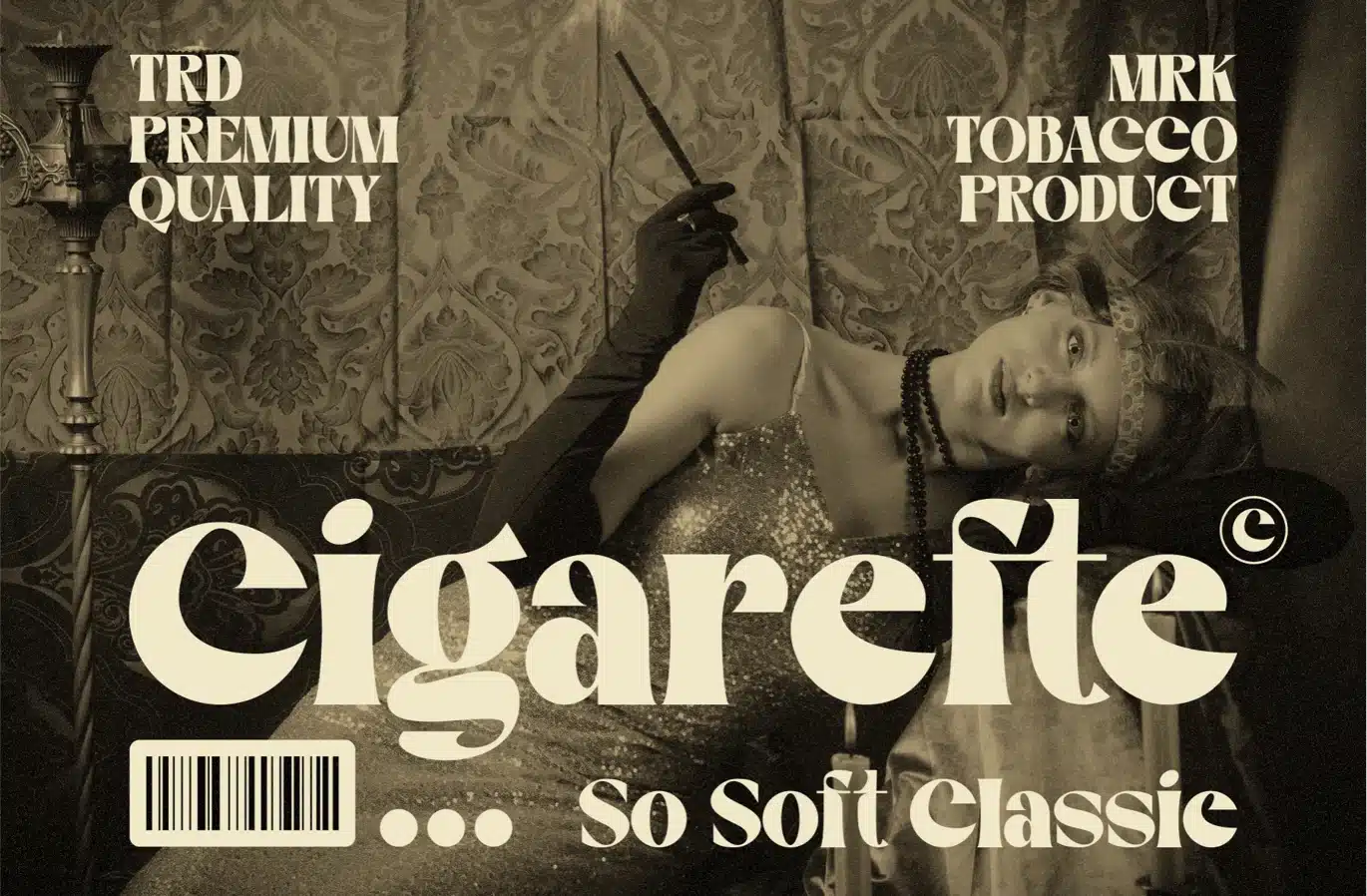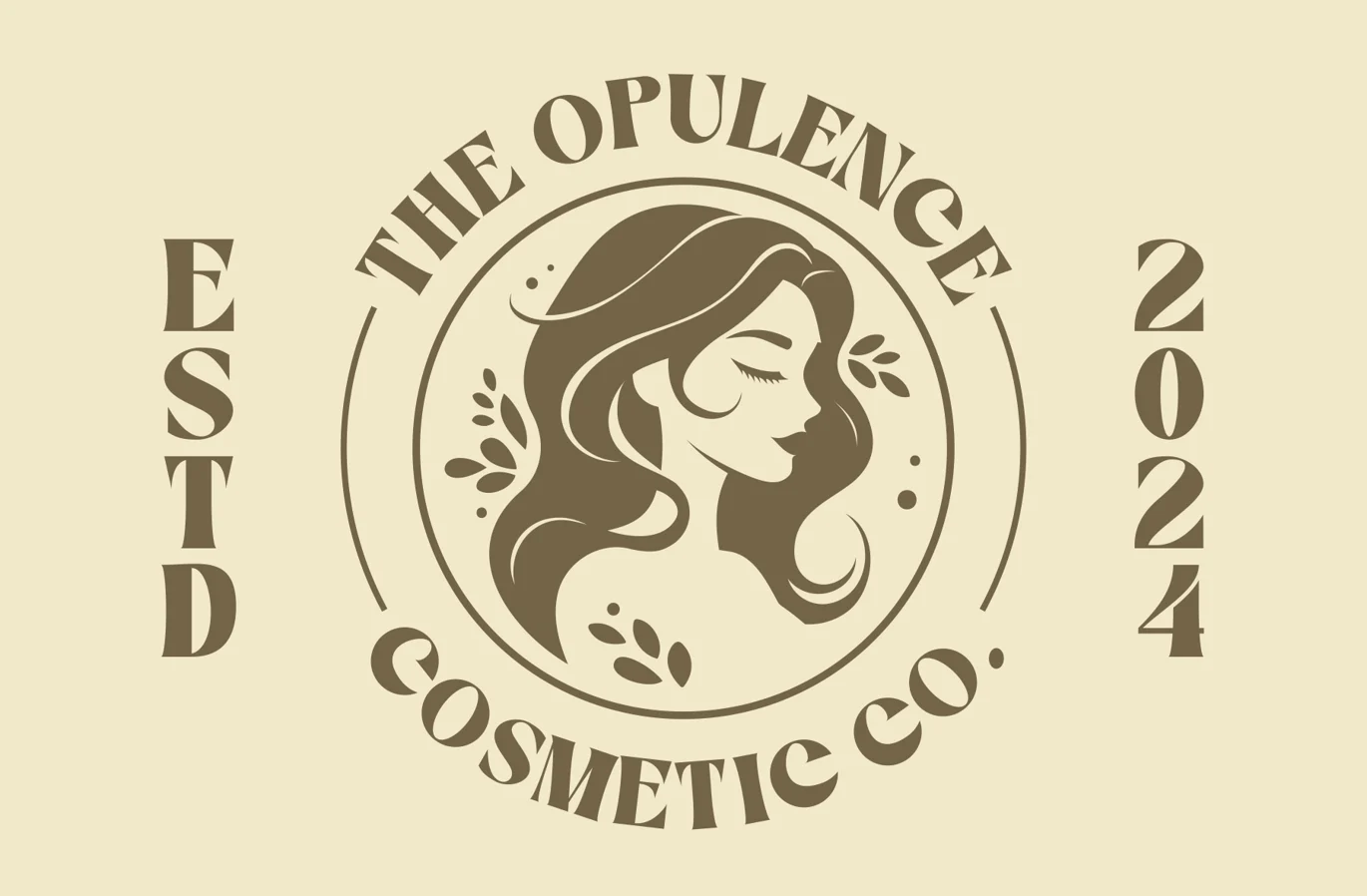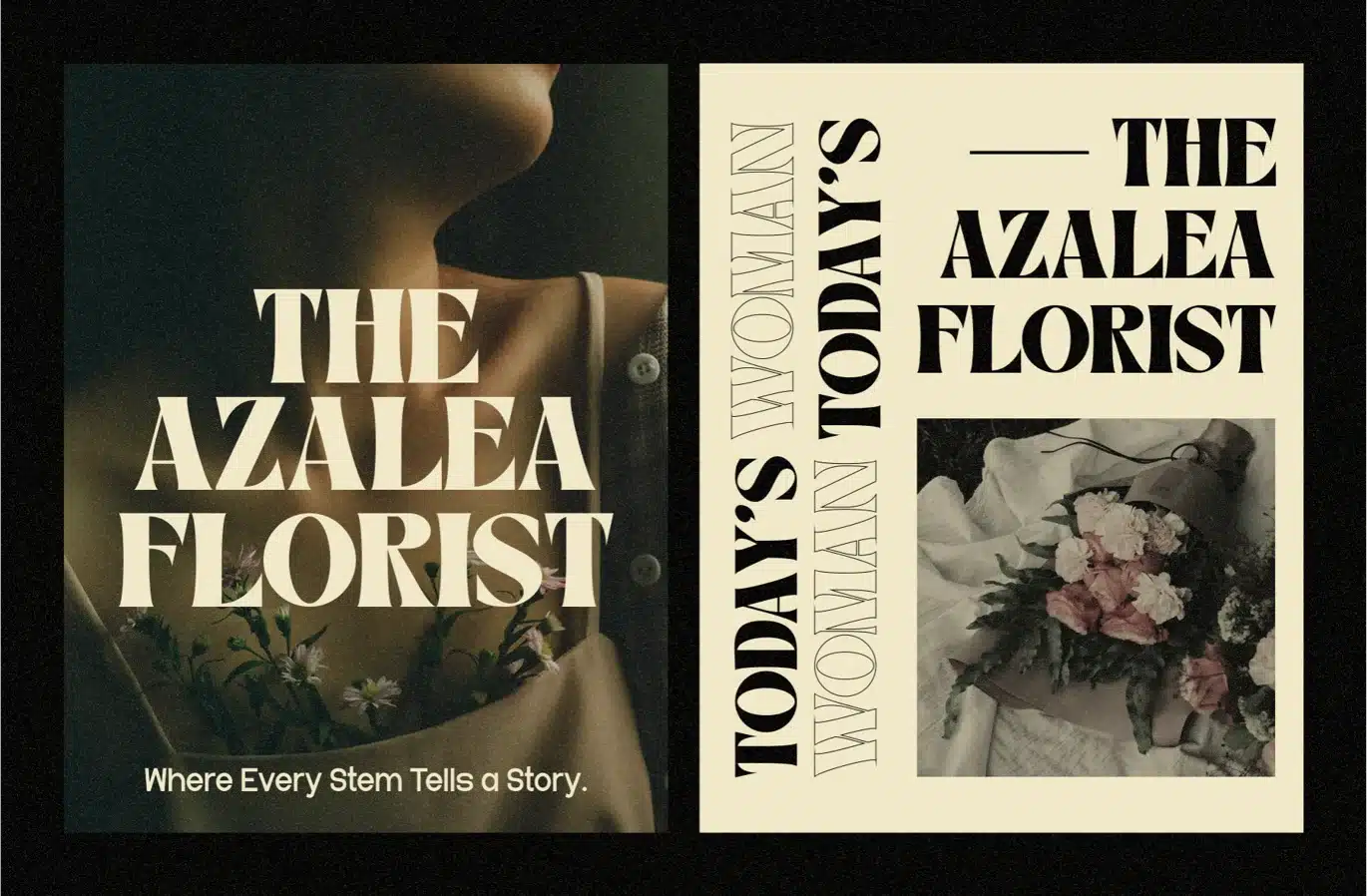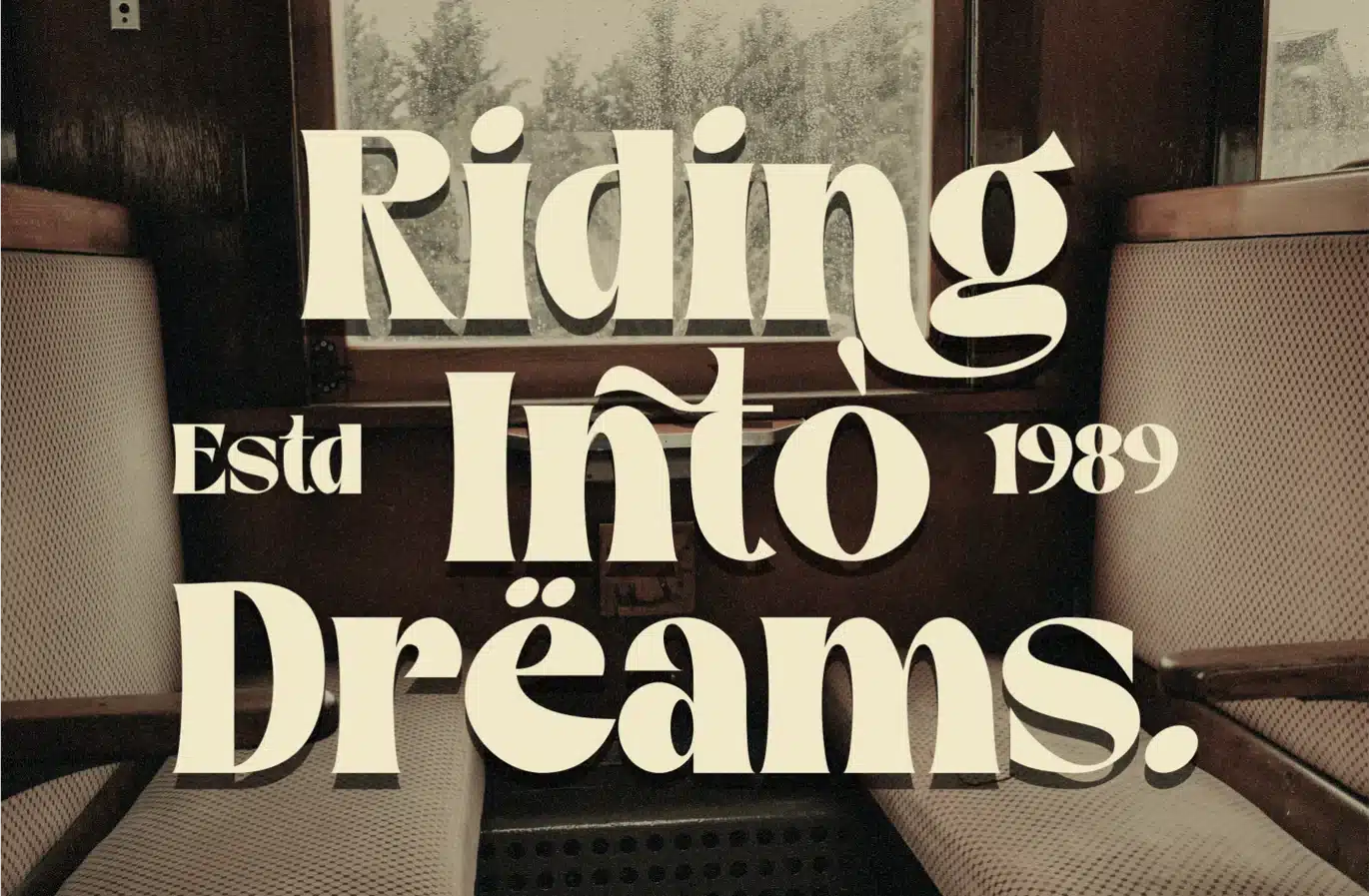
Mofagi – A Classic Serif Display Font
Introducing our new product Mofagi Font - A Classic Serif Display
Mofagi Font - A Classic Serif Display Font authentic display font. The font is suitable for any branding project like logo, Template Design, Product and many more. outstanding in a wide range of contexts.